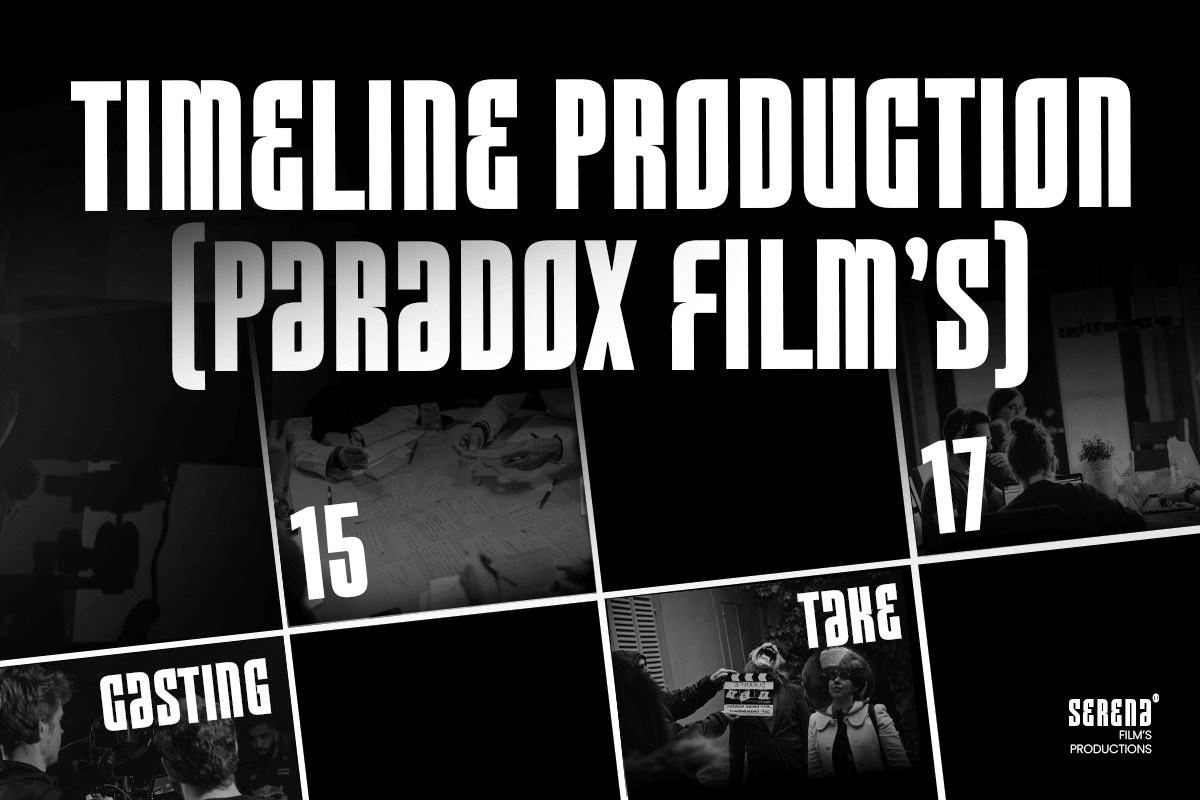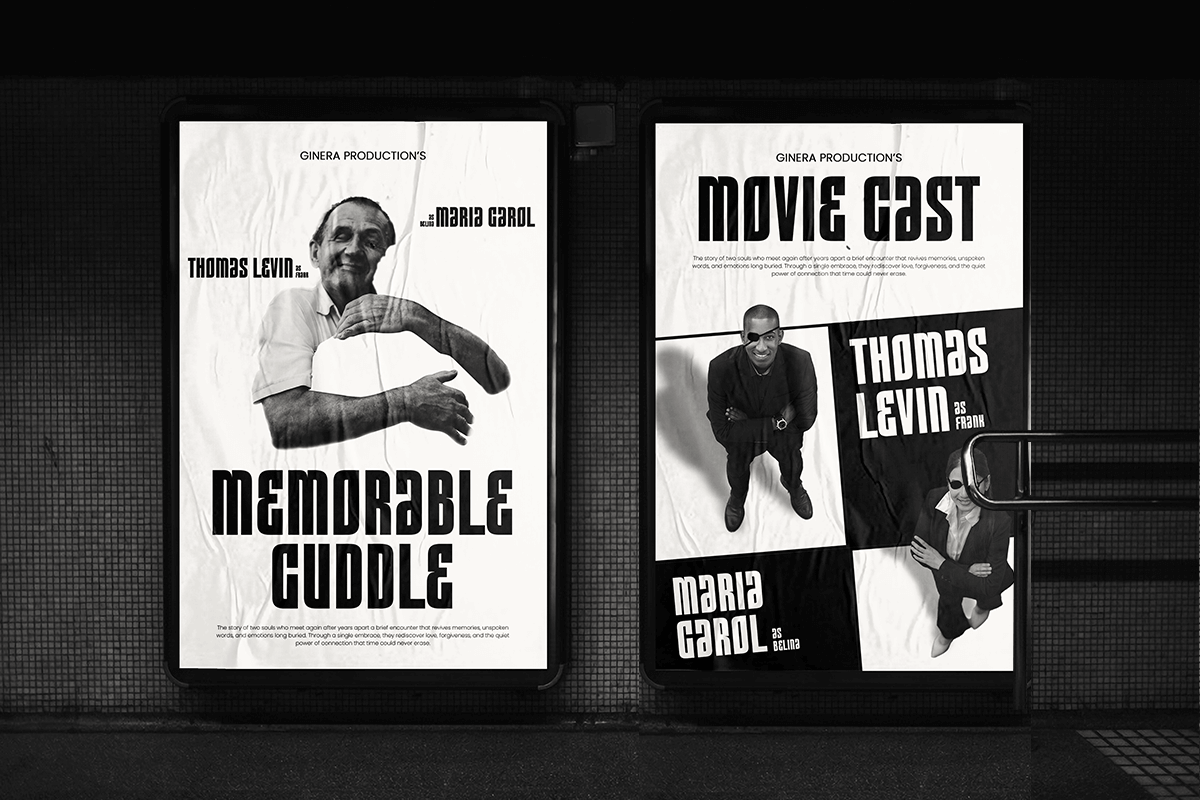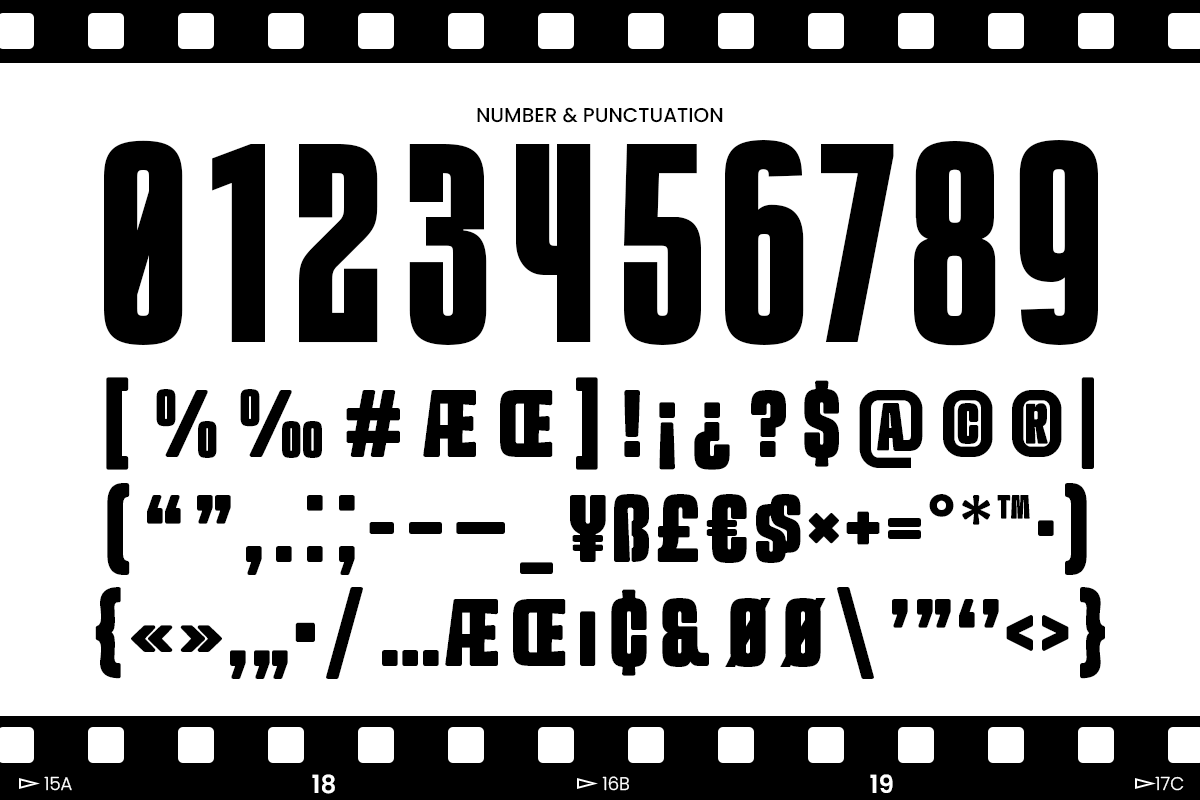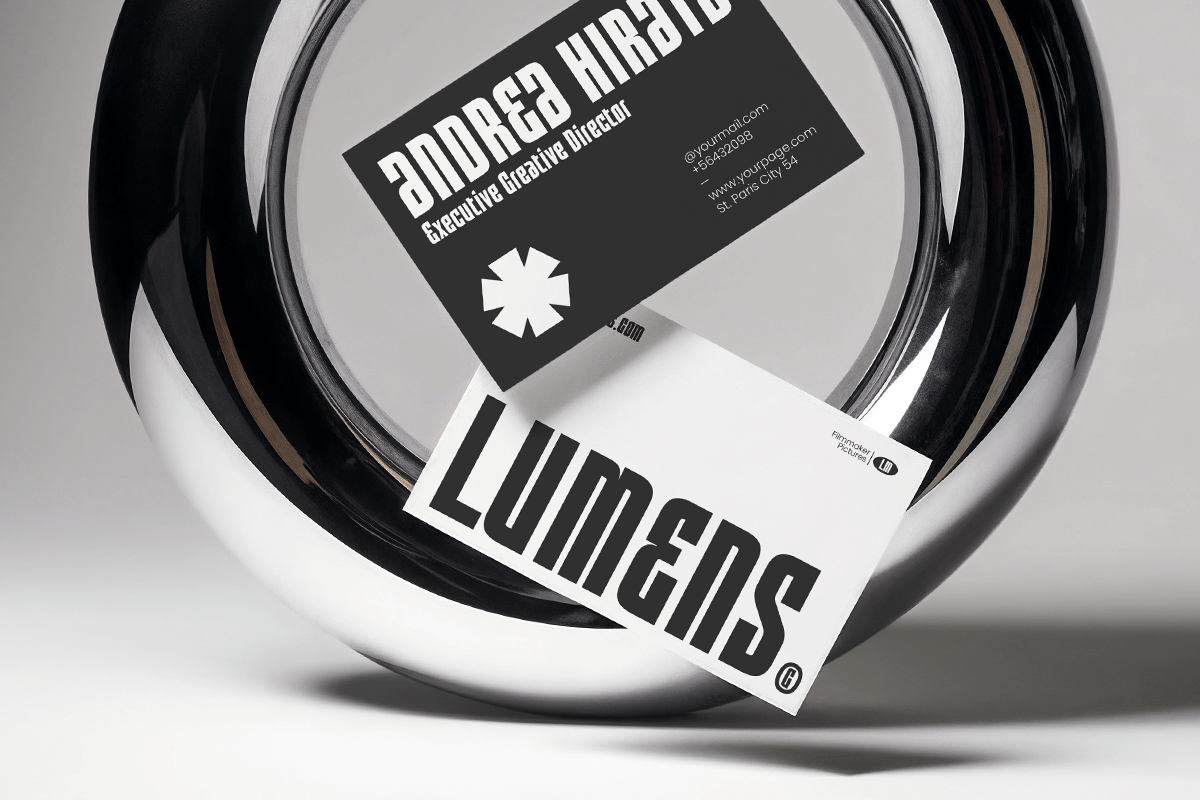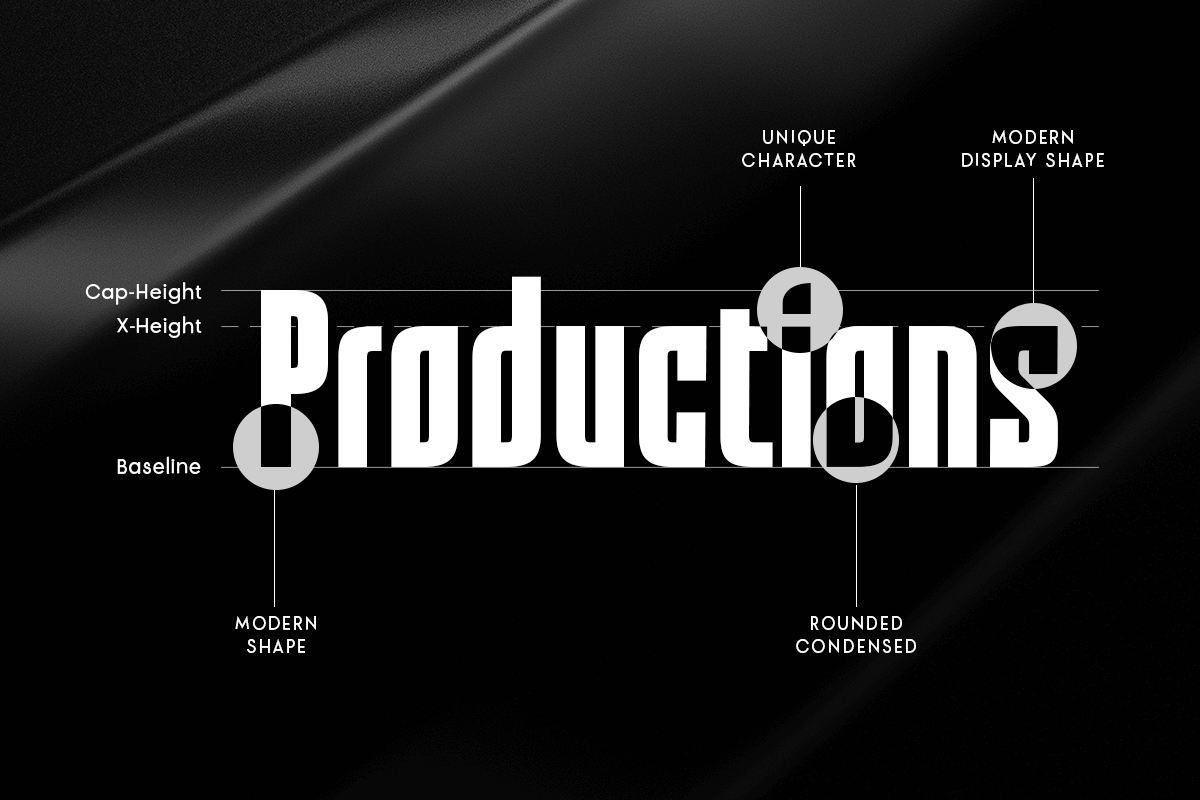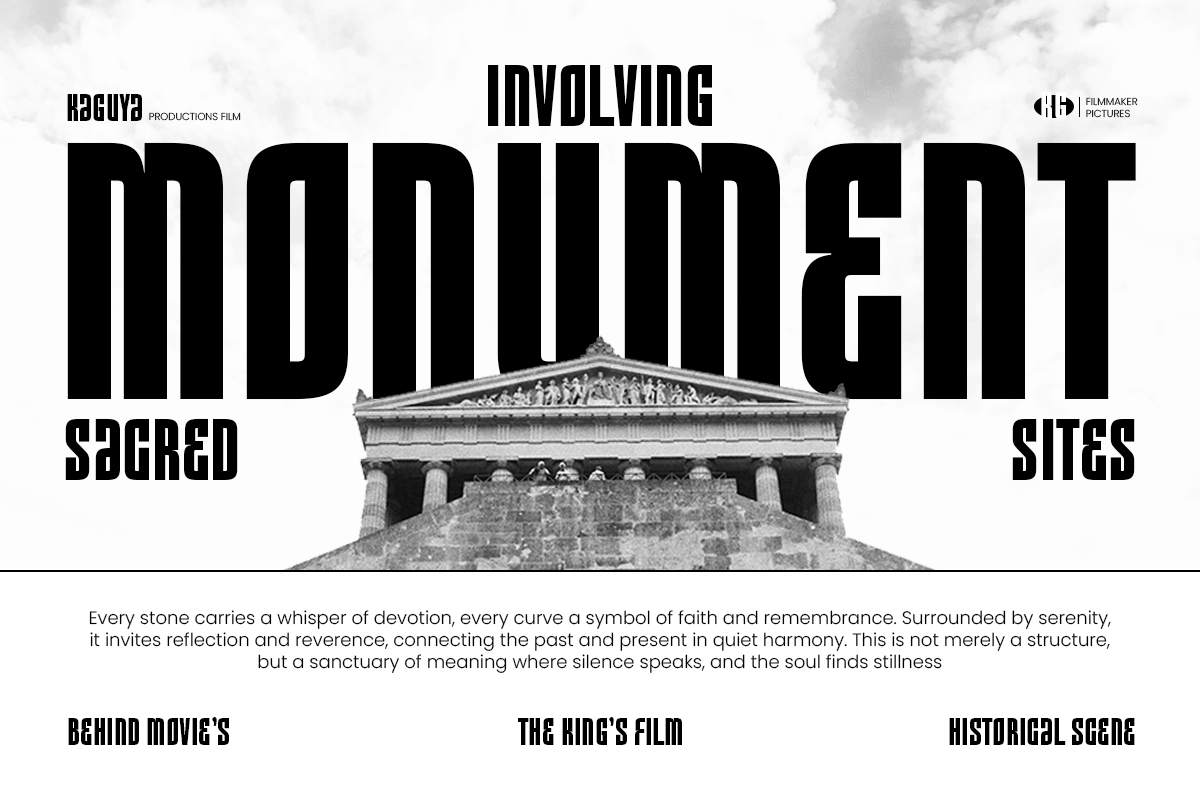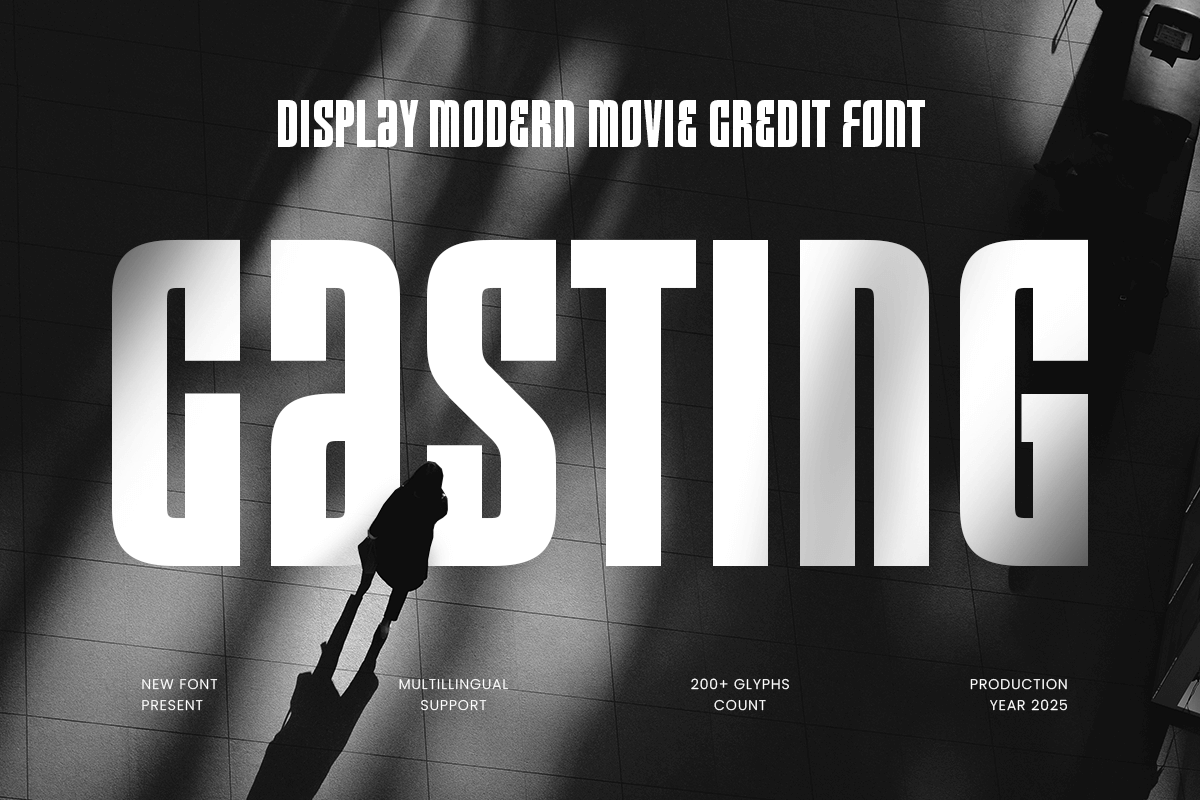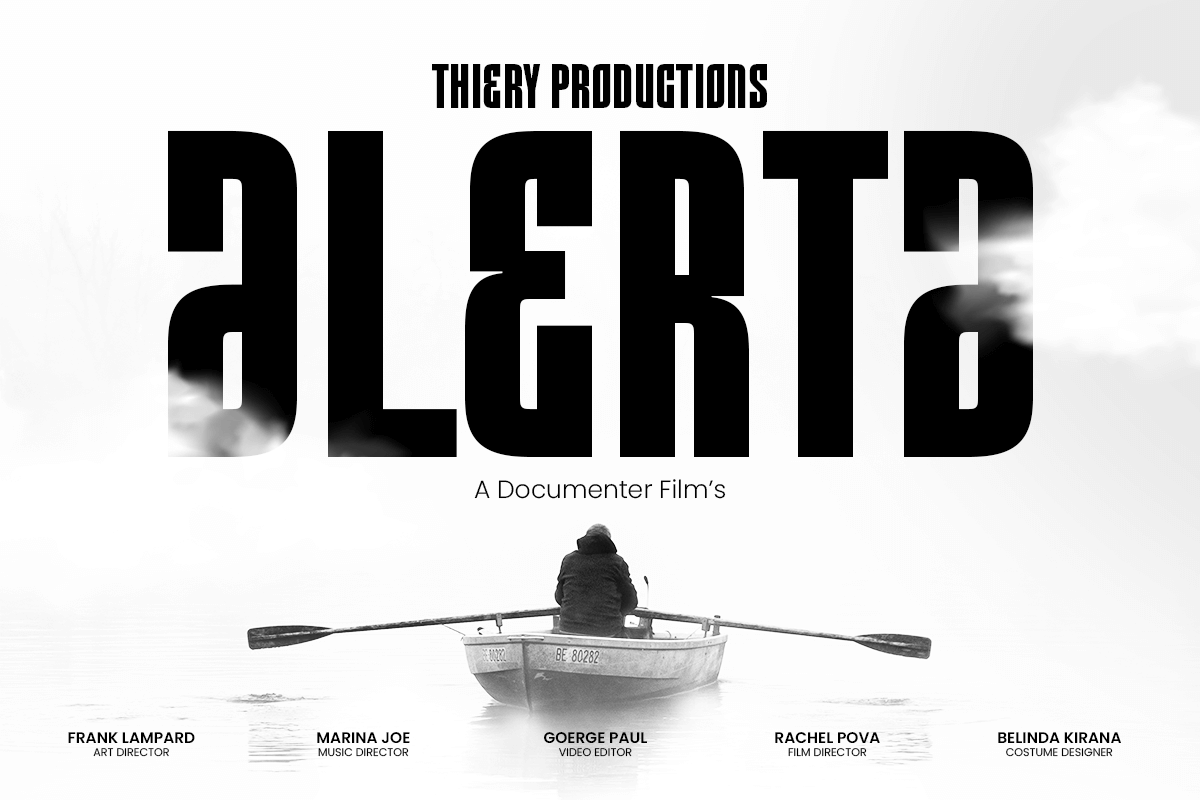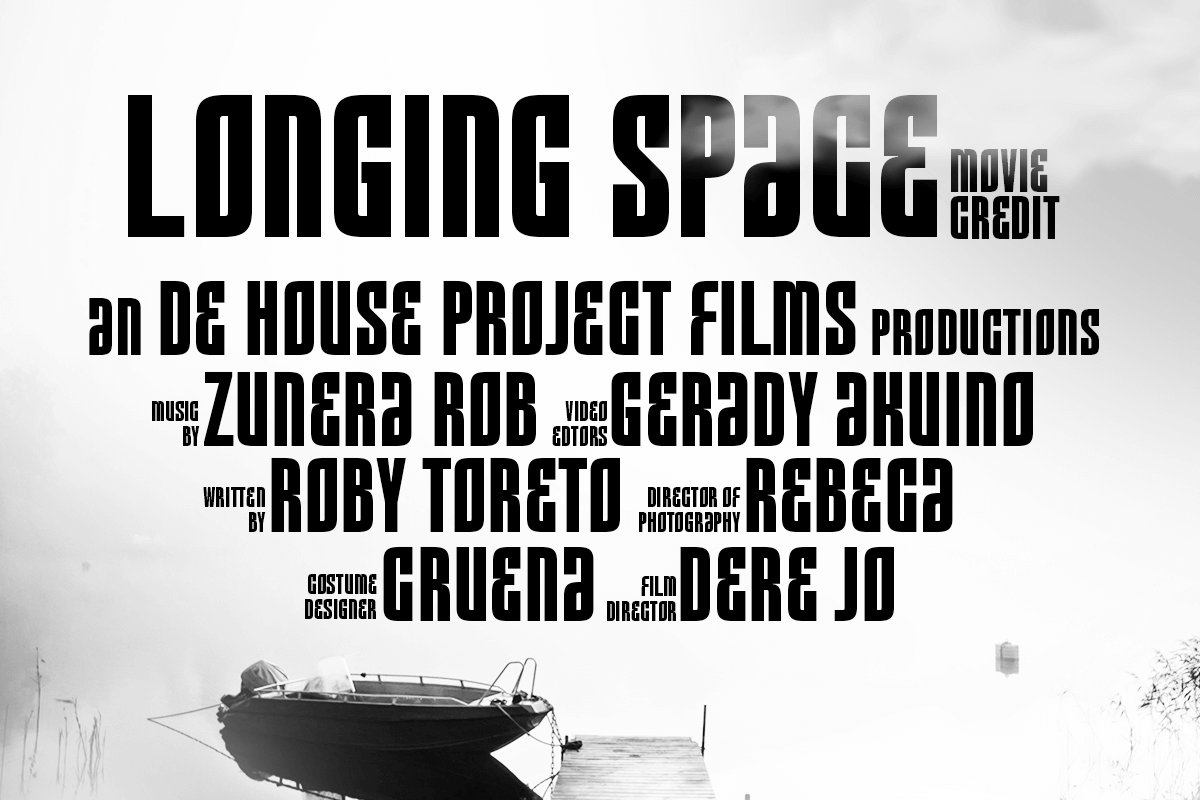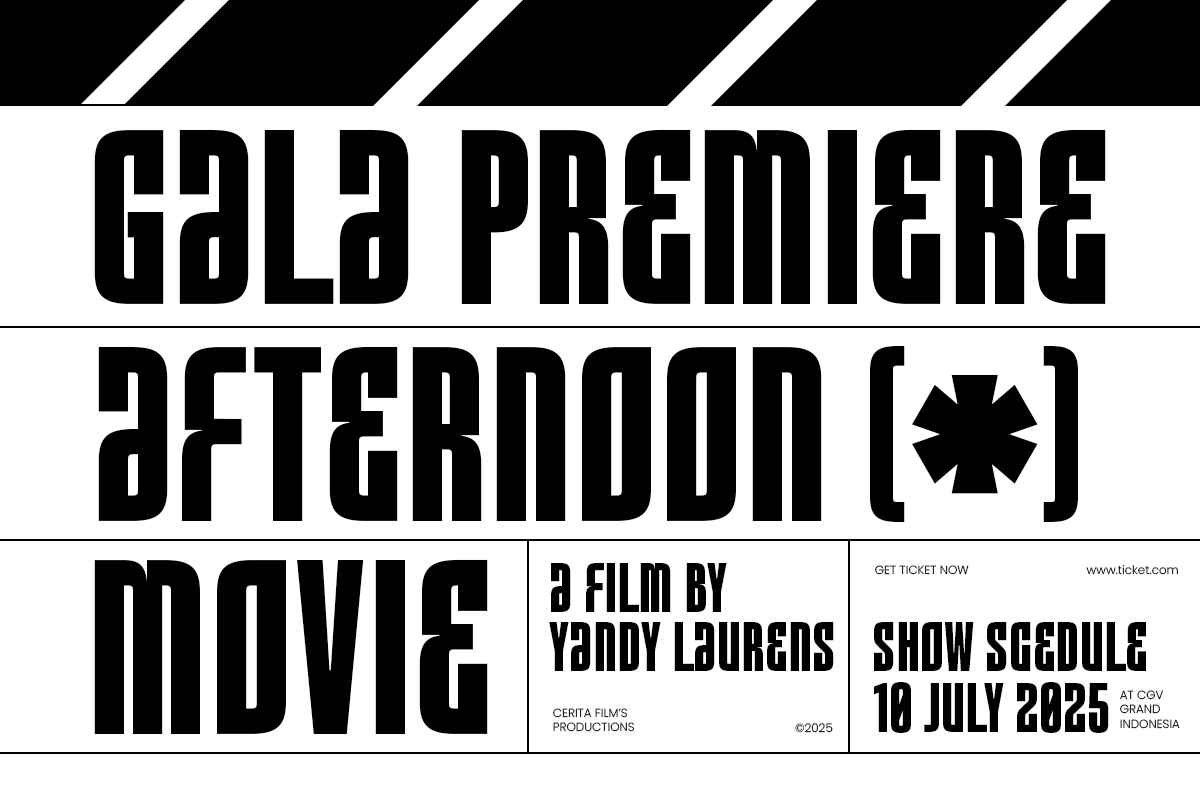
Casting - Modern Movie Credit Font
Casting – Display Modern Movie Credit Font
Casting is a sleek and contemporary display font inspired by professional movie credits and cinematic typography. Designed with clean proportions and refined spacing, Casting brings a polished, modern, and high–end look to film posters, trailers, title sequences, production branding, and minimalist editorial layouts.
Its narrow structure and elegant letterforms create a sophisticated visual style, making Casting ideal for creative studios, filmmakers, designers, and anyone seeking a premium movie–style typographic identity. Whether used for opening credits, promotional graphics, or artistic branding, Casting delivers clarity, professionalism, and a cinematic edge.
Casting – Display Modern Movie Credit Font Features:
* Modern display style inspired by film credits
* Clean and professional letter construction
* Ideal for posters, trailers, film titles, and branding
* Includes uppercase, lowercase, numerals, and punctuation
* Perfect spacing and refined alignment for cinematic layouts
Bring a polished Hollywood feel to your projects with Casting – the modern movie credit font designed for cinematic visuals.